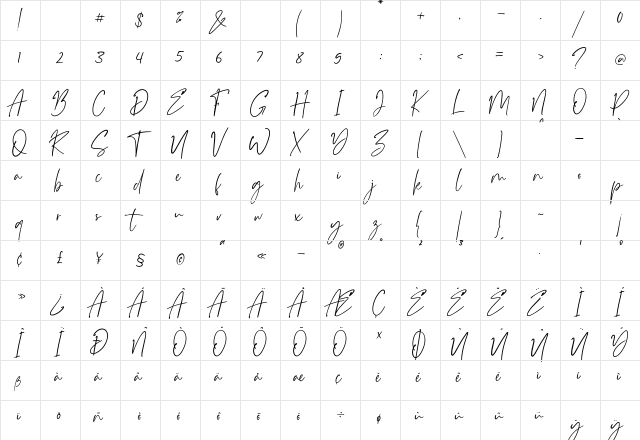
Monatta Regular Font Preview
Monatta Regular
Design Context for Monatta Typeface
Monatta is a composed and adaptable typeface that performs quietly and consistently across a wide range of design contexts.